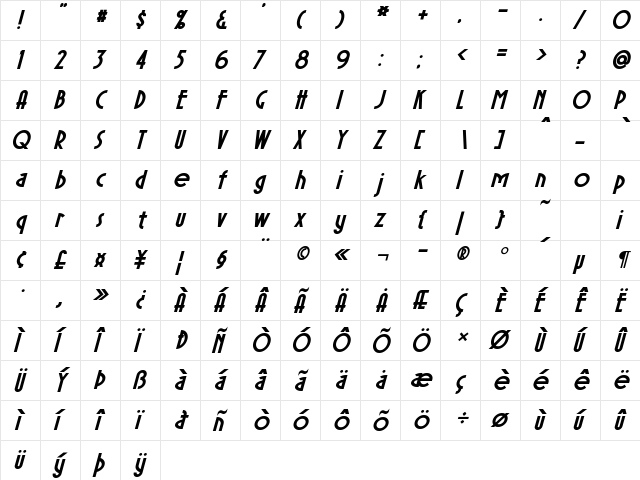
Sierra Madre Bold Italic
| Foundry | Neale Davidson |
| Designer | Neale Davidson |
Design Context for Sierra Madre Typeface
Sierra Madre offers clean, dependable letterforms without strong stylistic allegiance, making it a practical choice for designers who need flexibility. The dynamic lean of this cut emphasises speed and emphasis in any layout. The heavy weight commands attention and anchors typographic hierarchies.
Pro Tip: Use Sierra Madre for emphasis, pull quotes, and subheadings where its slanted energy can add rhythm to the layout.